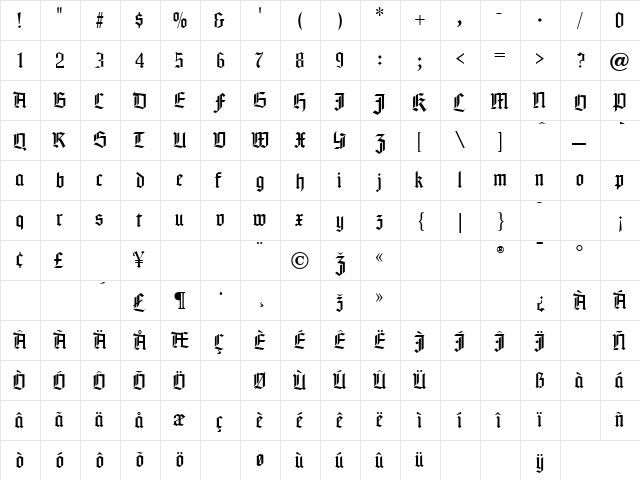
Matrix Normal Font Preview
Matrix Normal
Matrix Normal Font Details
Design Context for Matrix Typeface
Matrix is a composed and adaptable typeface that performs quietly and consistently across a wide range of design contexts.